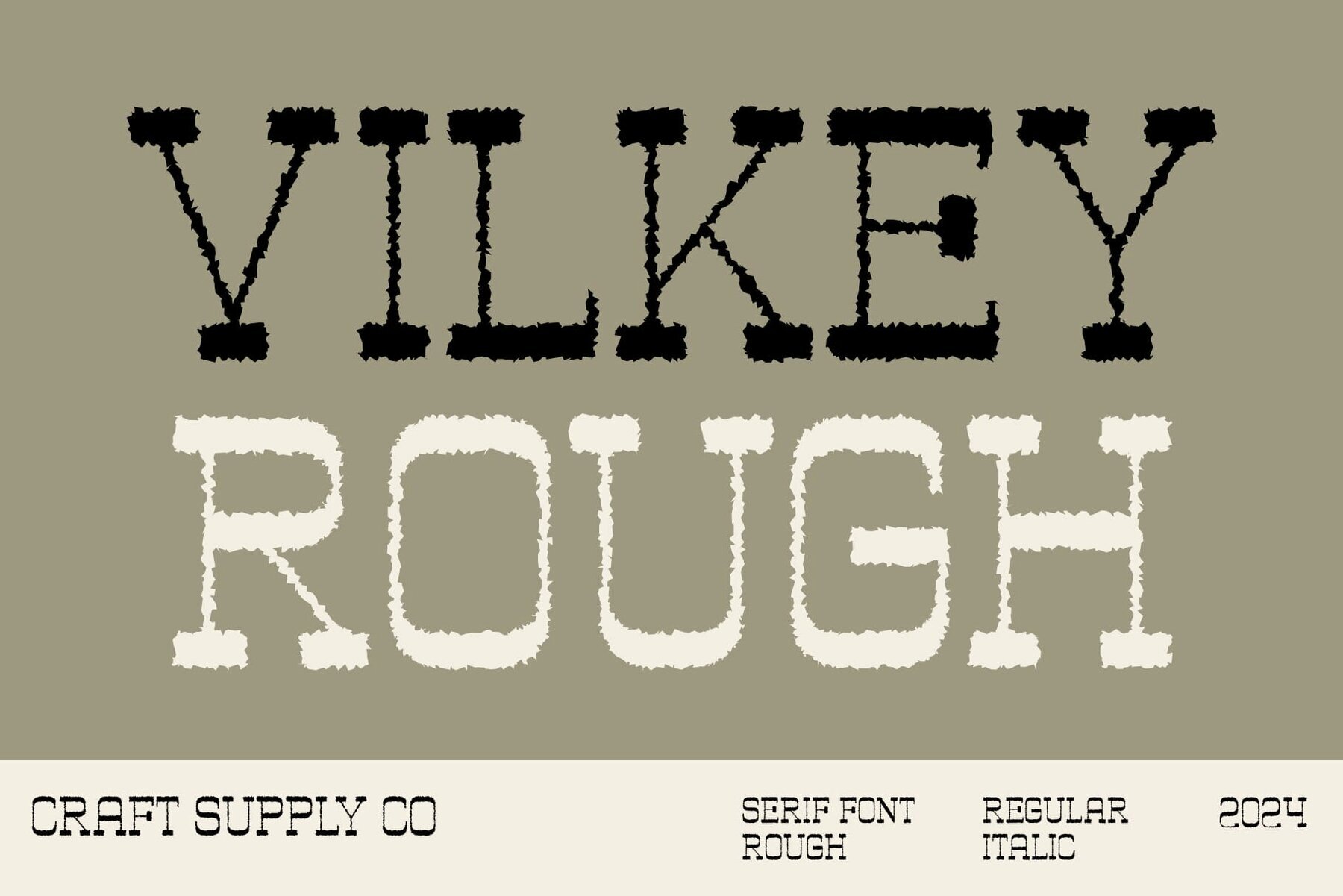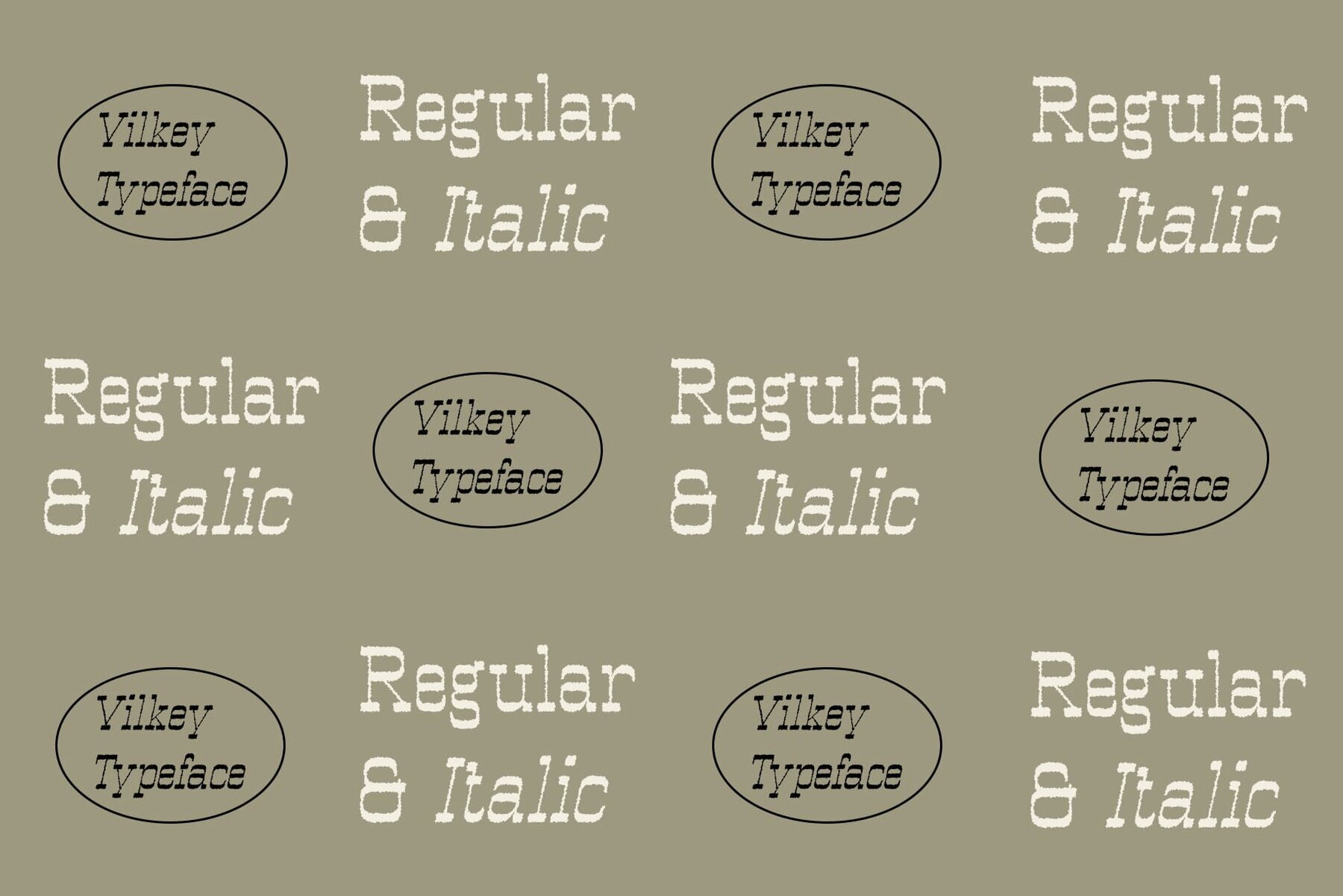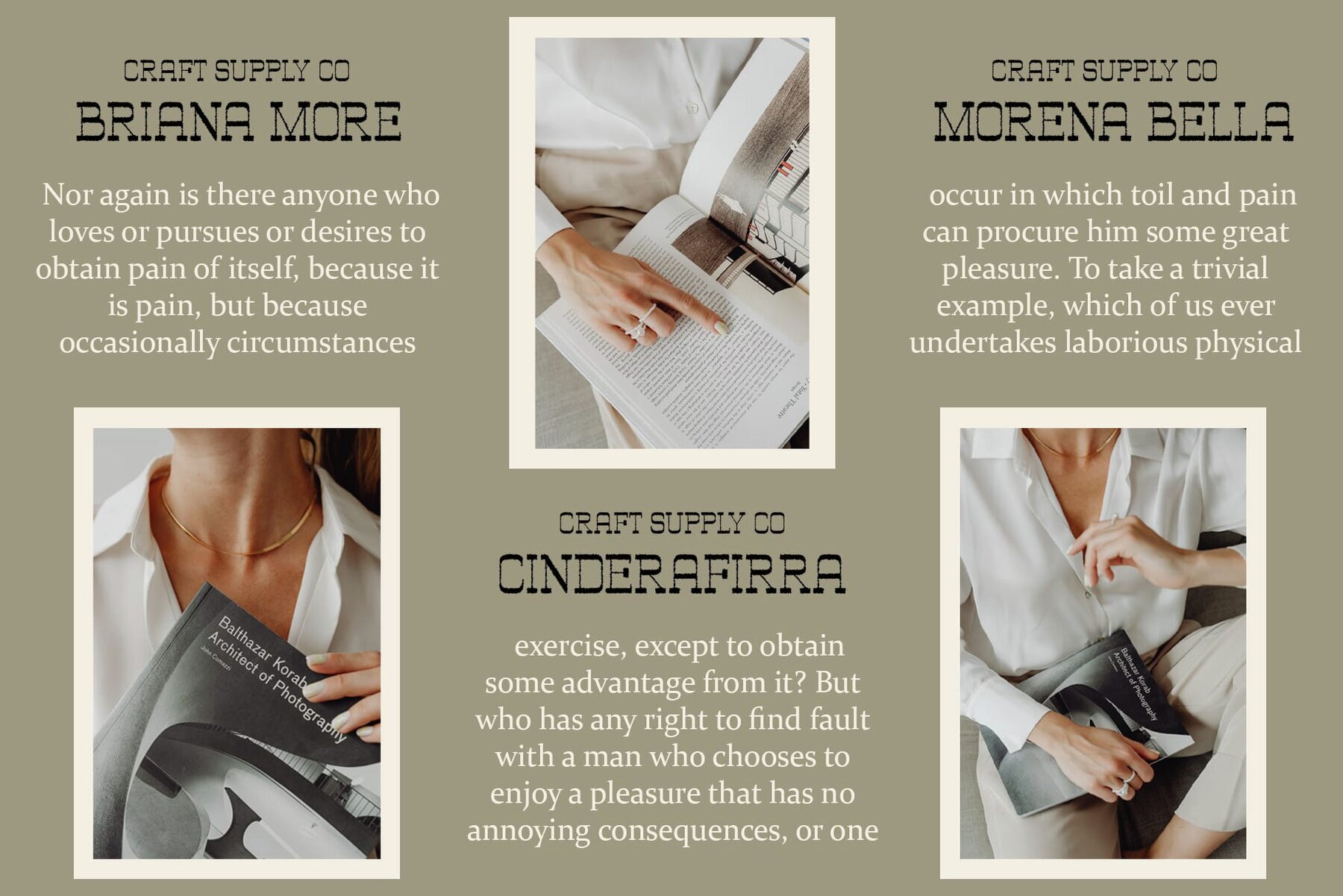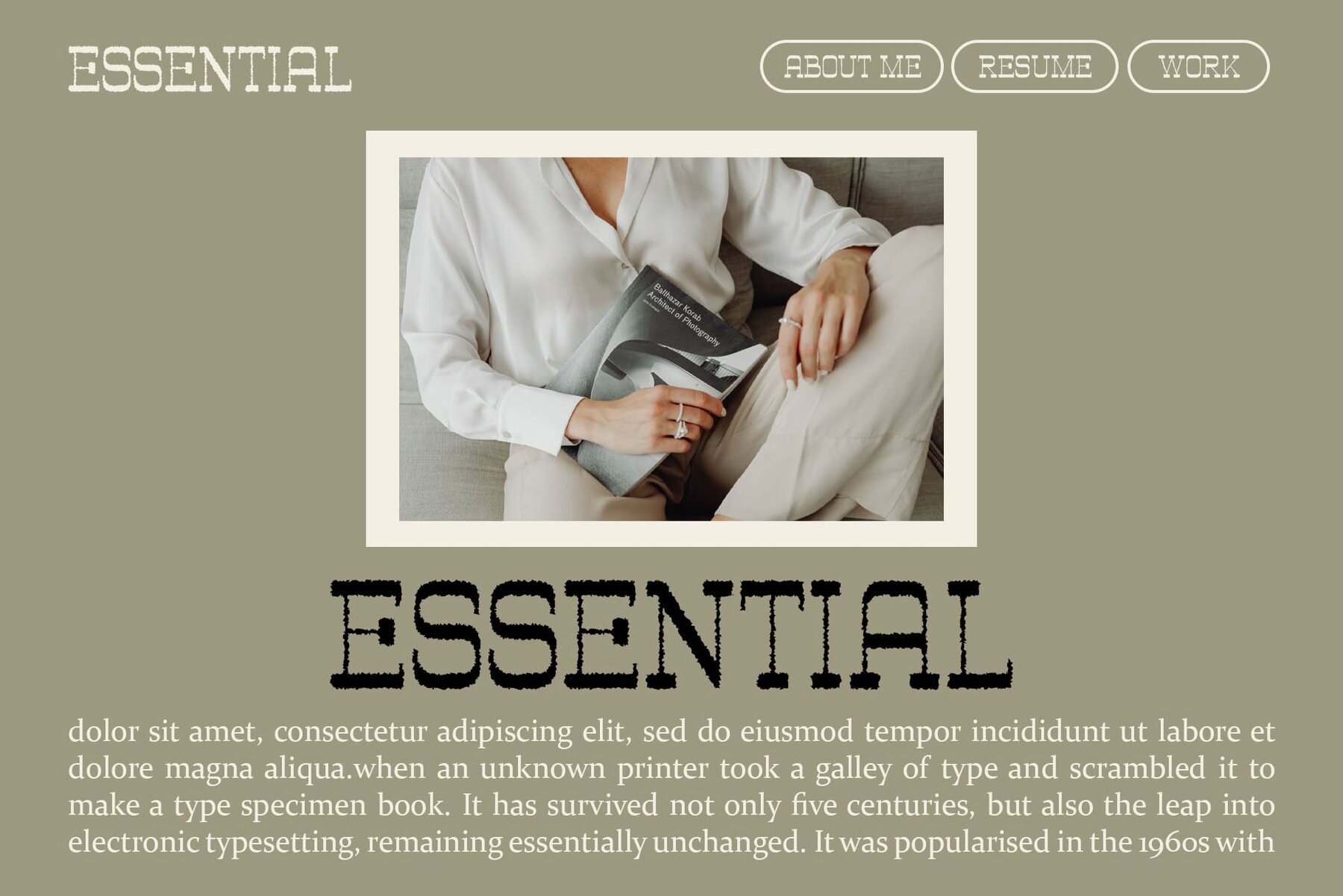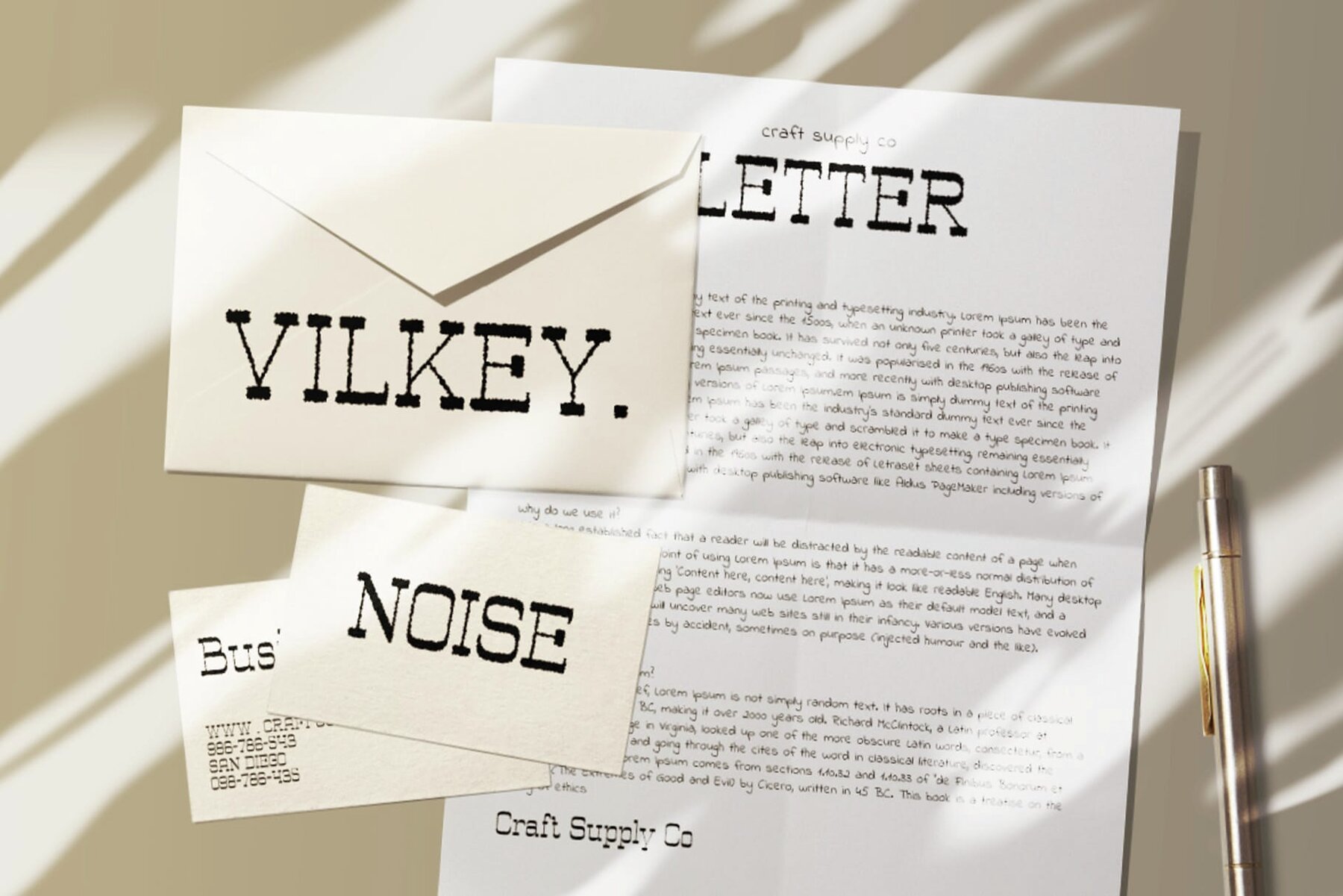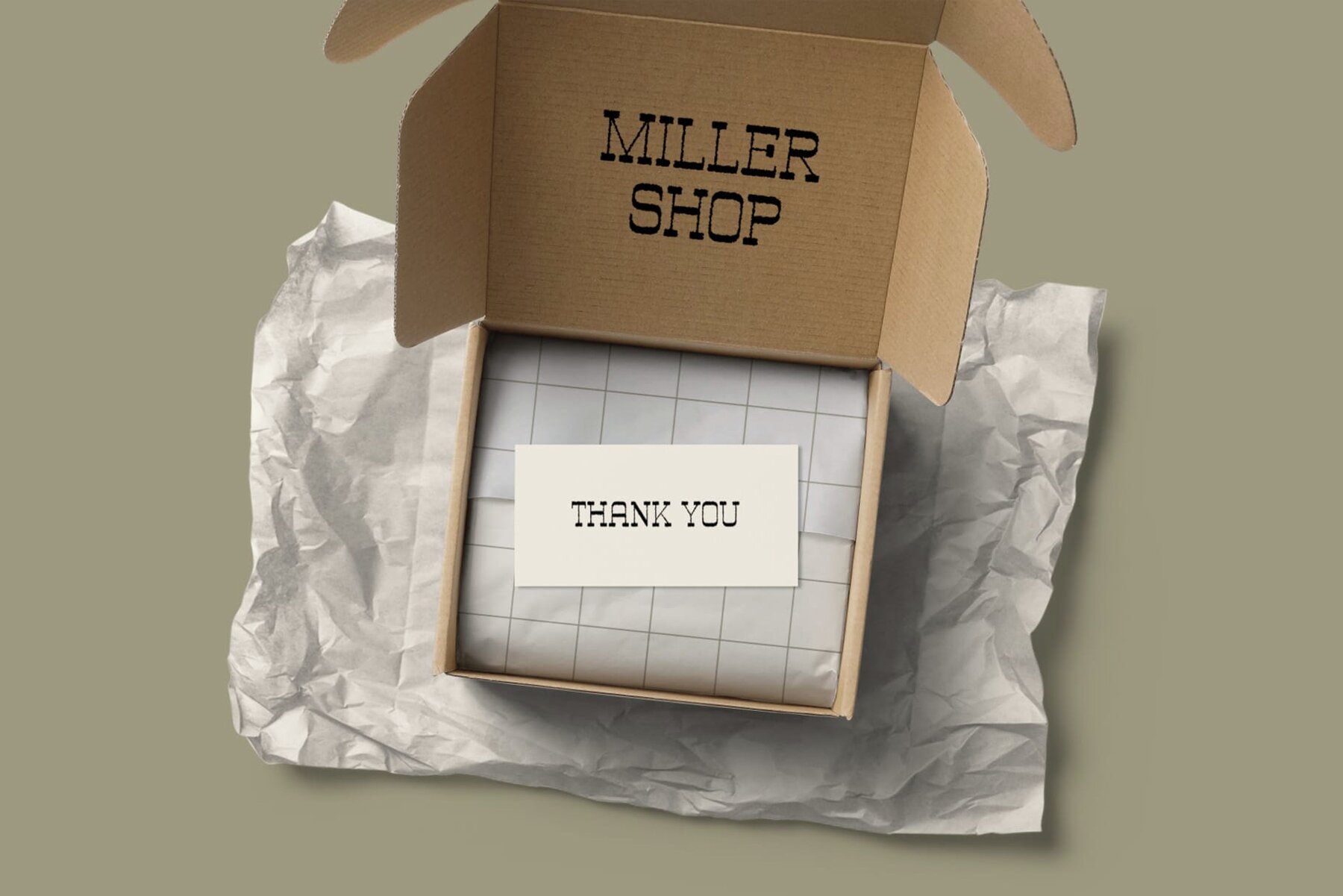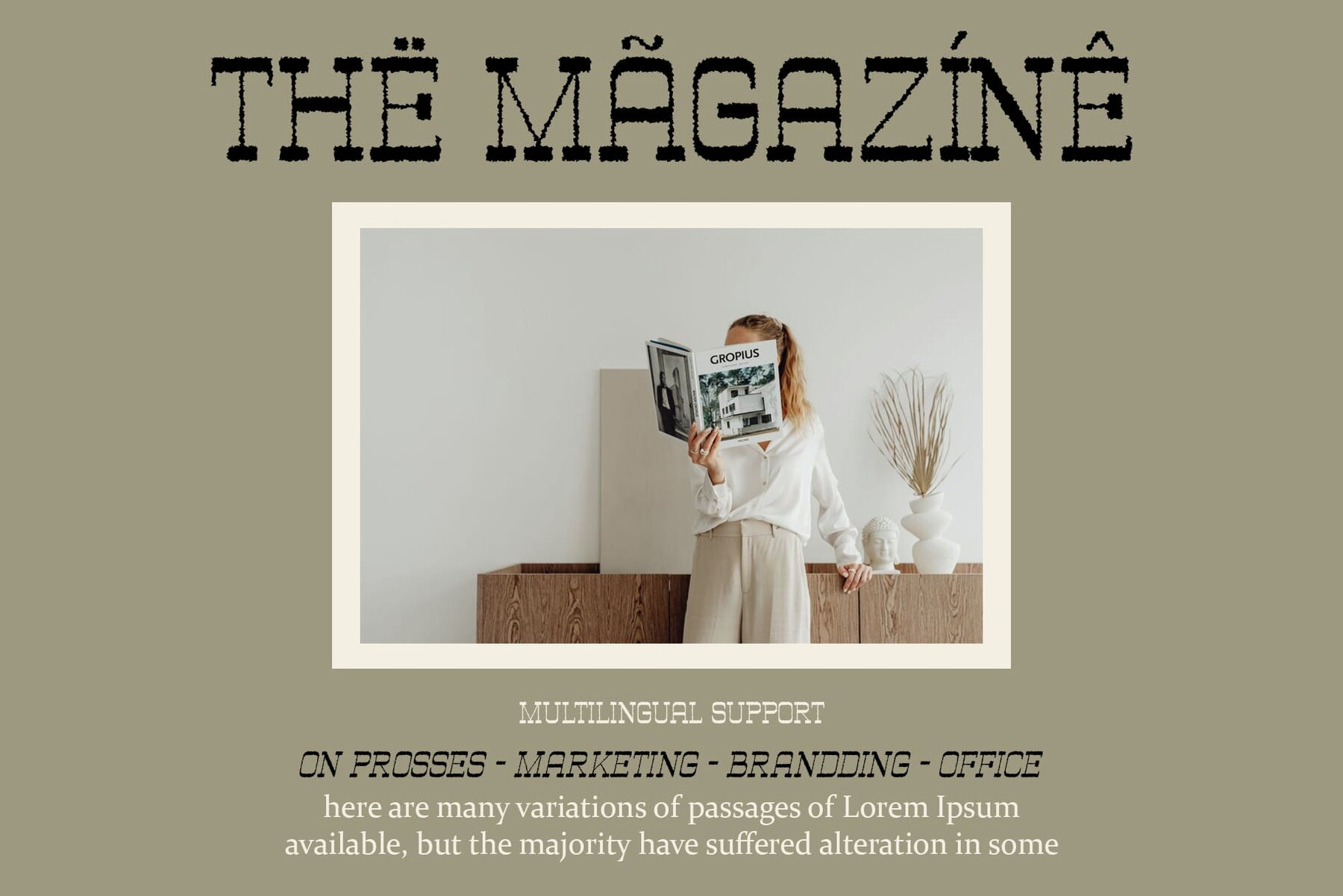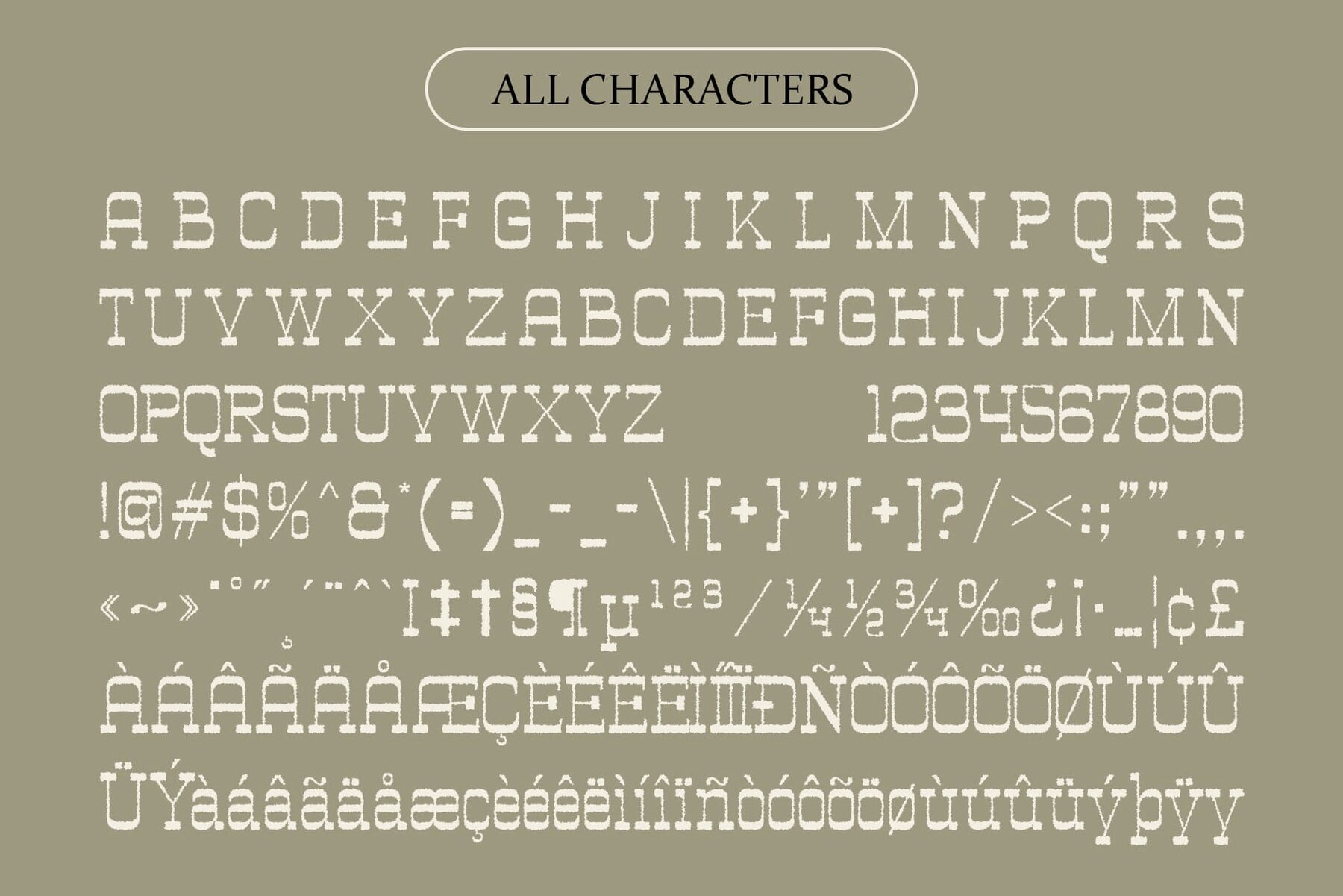
Vilkey Rough Font
Vilkey Rough is a striking reverse contrast slab serif font, where thick strokes dominate the horizontal elements rather than the vertical ones. This unique styleresults in a bold and unconventional aesthetic, perfect for catching the eye. The font's standout feature is its rough texture, adding depth and character to each letterform. This rugged quality conveys a sense of authenticity and handmade craftsmanship, making it an ideal choice for display projects that require a touch of personality.
Designed specifically for display purposes, Vilkey Rough excels in commanding attention. Its bold presence and distinctive style are perfect for headlines, banners, posters, and other prominent design elements. Despite its bold and rugged appearance, this font is remarkably versatile. It can be used effectively in branding, packaging, editorial design, and digital media. The font includes uppercase and lowercase characters, numerals, punctuation, multilingual accents, and PUA encoding, making it a comprehensive tool for various design needs.